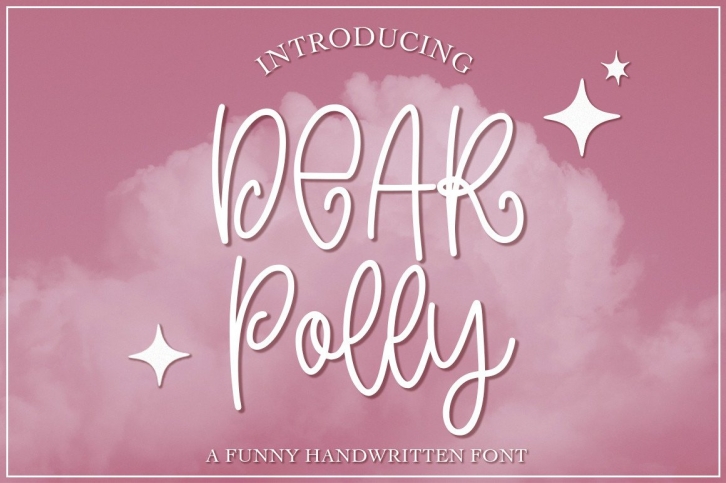
Dear Polly is a beautiful and light handwritten font with a unique feel and a stunning impact. It will add a luxury spark to any design project that you wish to create!